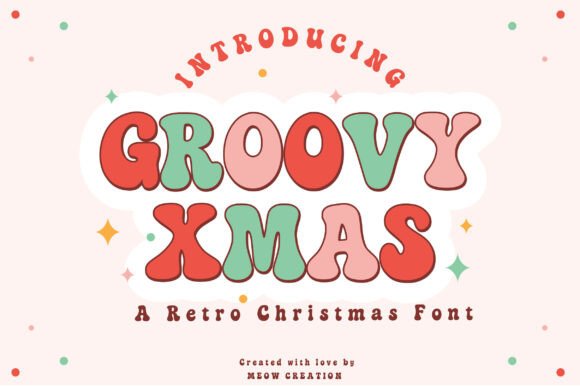
Groovy Xmas Font
Groovy Xmas – Retro Christmas Font
Add a playful 70s vibe to your holiday projects with Groovy Xmas, a bold retro font with funky, groovy lettering. Perfect for Christmas cards, t-shirts, mugs, posters, and sublimation designs. Its retro style brings a cheerful, nostalgic touch to all your festive creations, making your holiday designs stand out.